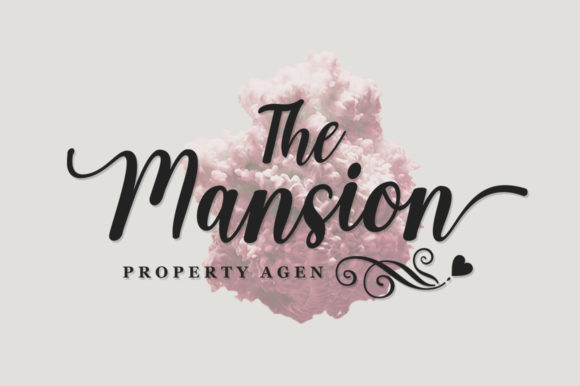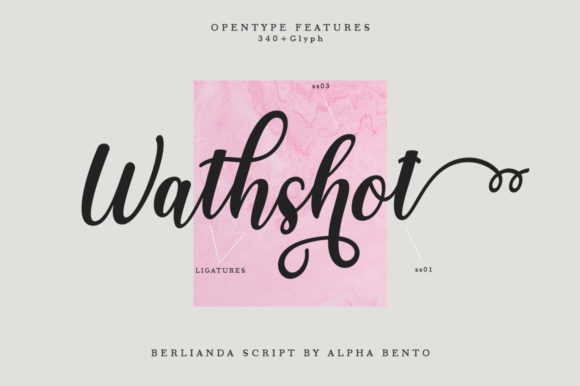
Berlianda Script Font
db-ku.com - Script & Handwritten -- Berlianda Script is a superb handwritten font that will make your work stand out through its elegant and curvy lines. It is perfect for product packaging, branding project, magazine covers, social media, wedding, or just used to express words above the background. This font is PUA encoded which means you can access all of the glyphs and swashes with ease!